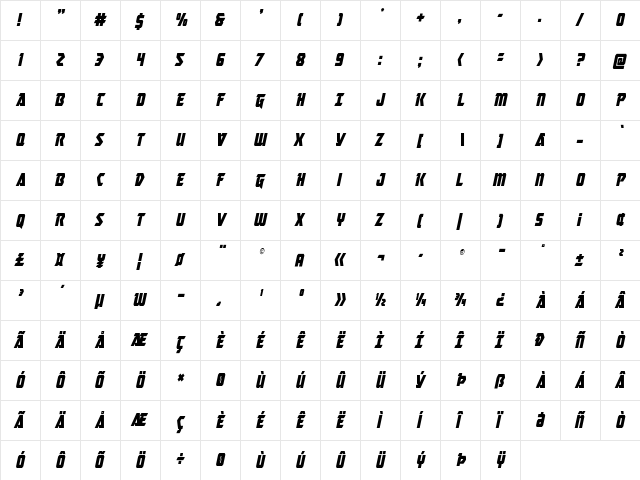
Master Breaker Condensed Italic Font Preview
Design Context for Master Breaker Condensed Italic Typeface
Master Breaker Condensed Italic is a composed and adaptable typeface that performs quietly and consistently across a wide range of design contexts. The slanted form adds forward momentum and visual energy. The condensed width makes it efficient for tight spaces without sacrificing legibility.